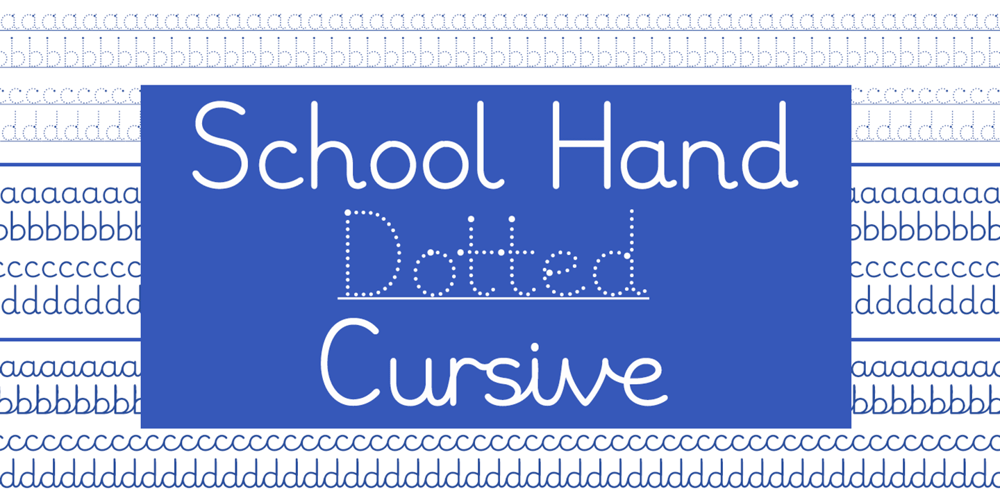
School Hand Font Family was designed by Tanya Davis and published by Scrowleyfonts. School Hand contains 3 styles and family package options. School Hand is a font designed for use with young children. There is the Dotted version, which is designed to be traced over with a larger dot to show where to start and automatic lines. Then there is the Regular version which can be used for reading or can be printed light grey for tracing. School Hand Cursive is a cursive font which is designed using contextual alternates. Contextual alternates cannot be activated in the Myfonts preview window so please see the gallery images which show how the smooth flow of letters is achieved. Contextual alternates are available in Adobe applications and MS Word 2010 or later. If you want to see how particular text will be rendered please contact me.